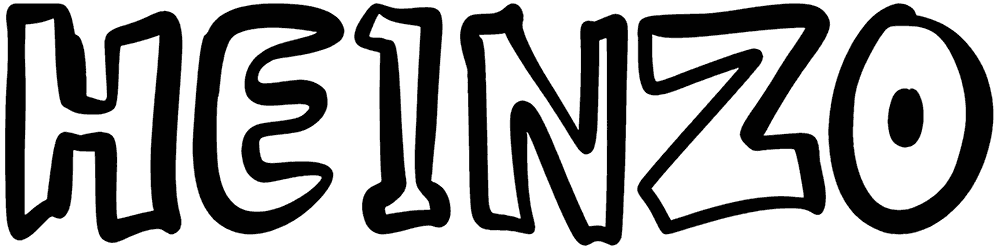
Ageer Font
Ageer is a versatile 90s cartoon font that has a wide variety of applications, ranging from book covers, illustrations, educational brochures, and even logos, so it would be your assistant in designing outstanding graphic content. Because its characters are a little bit oblique, this font instills a sense of disorder, jauntiness, grunge, and love, so ignoring the lack of numbers would be practical.
Designed by: Twinletter